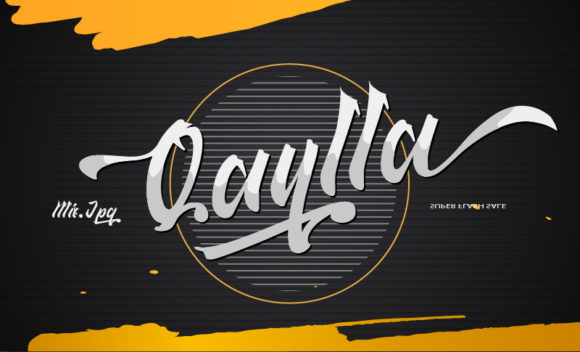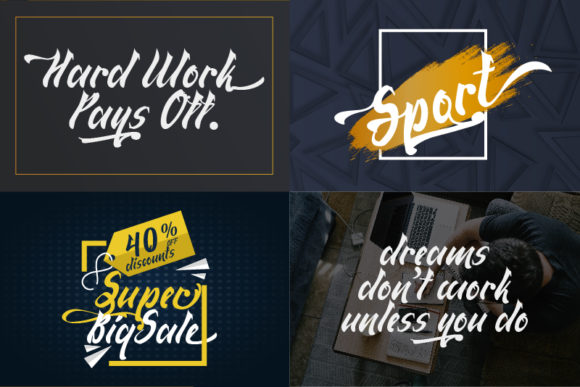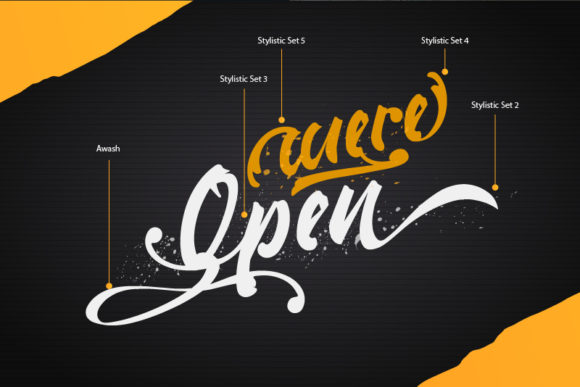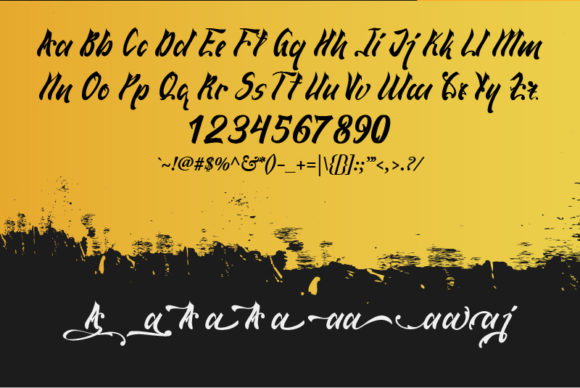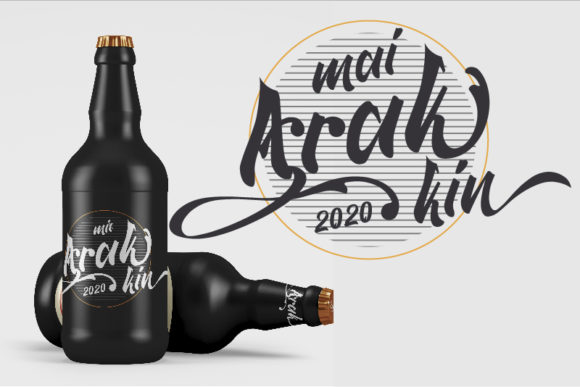
Qaylla Font
About Qaylla Font
Qaylla is a handwritten font inspired by 80s-90s music, retro, disco, grunge, and pop culture.Best used for posters, logos, clothing, books, invitations and more.